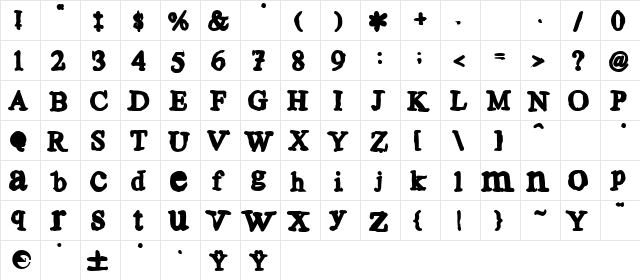
Aulden Times Over Weight
Design Context for Aulden Times Typeface
Aulden Times is a composed and adaptable typeface that performs quietly and consistently across a wide range of design contexts.